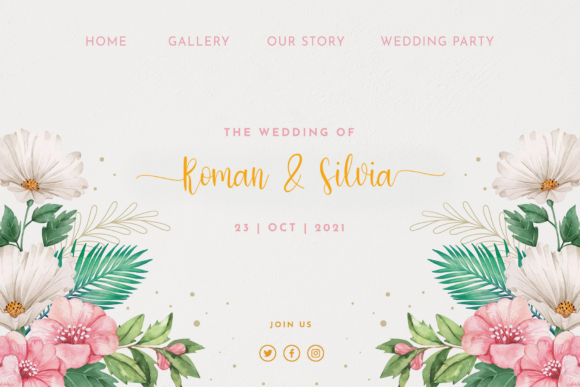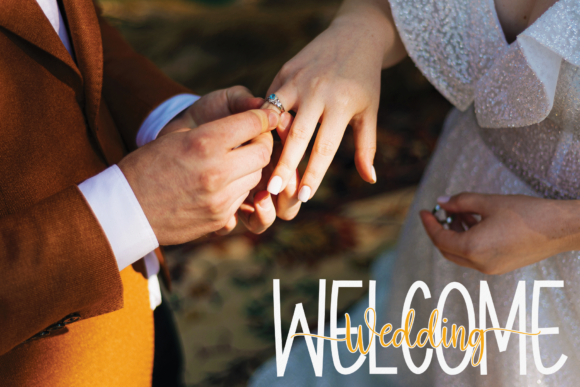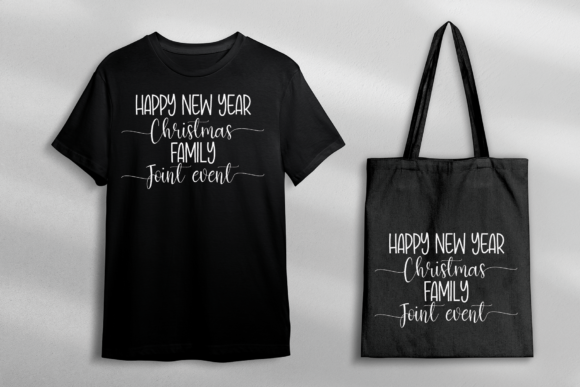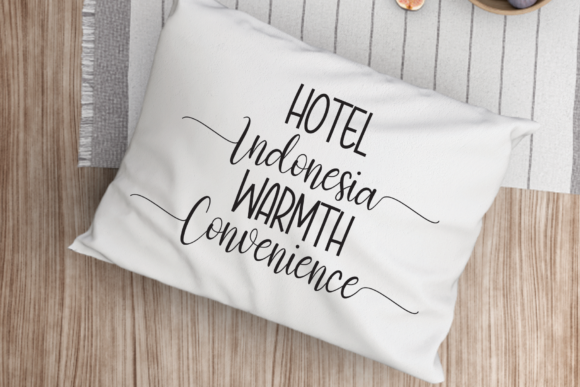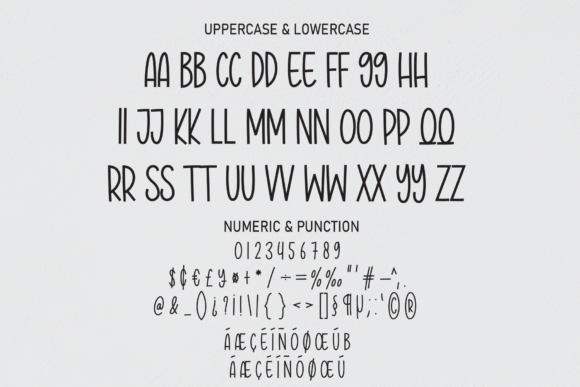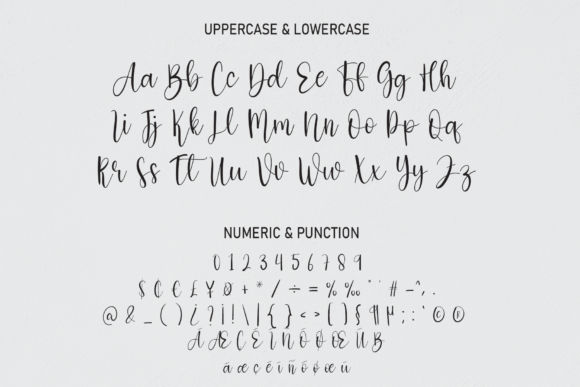
Introduction to Hello Minimalist Font
Hello Minimalist consists of two fonts designed to complement each other perfectly.
Together or apart, these fonts are ideal for adding a chic and cheery touch to your crafts This font is PUA encoded which means you can access all glyphs and swashes with ease.
Key Features of Hello Minimalist Font
Why Choose Hello Minimalist Font?
Hello Minimalist Font offers exceptional quality and versatility, making it a valuable addition to your design toolkit. Whether you’re creating for personal projects or commercial use, Hello Minimalist Font delivers professional results.